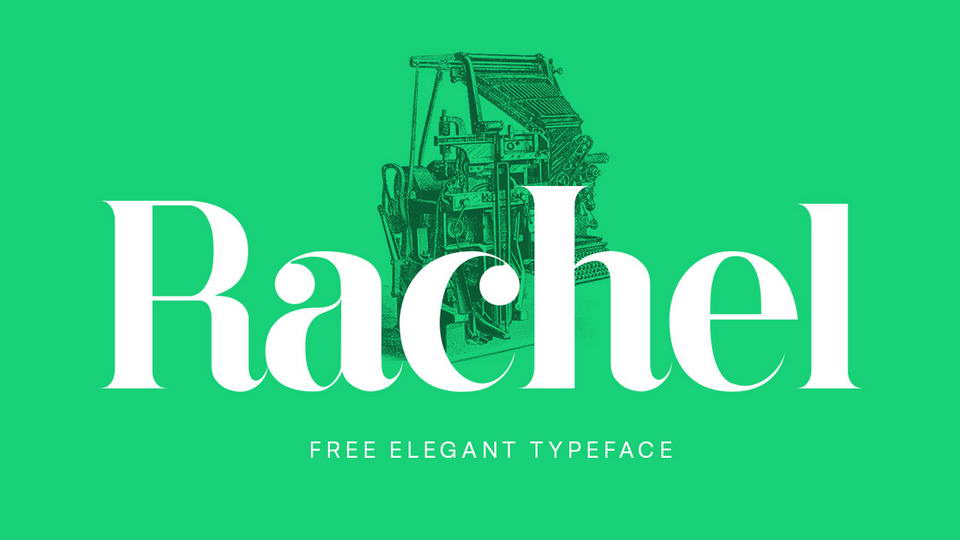
Rachel Font
Rachel -  free elegant serif typeface inspired by Bodoni designed by Giambattista Bodoni and Lapiday Roman characters. As id Bodoni font, Rachel has a strong contrast between thin and thick rods. Some letter such as “Q” and “g” are characterized by strong drawing and soft curves. Rachel comes with Regular and Italic fonts, contains uppercase, lowercase letters, numbers, symbols.